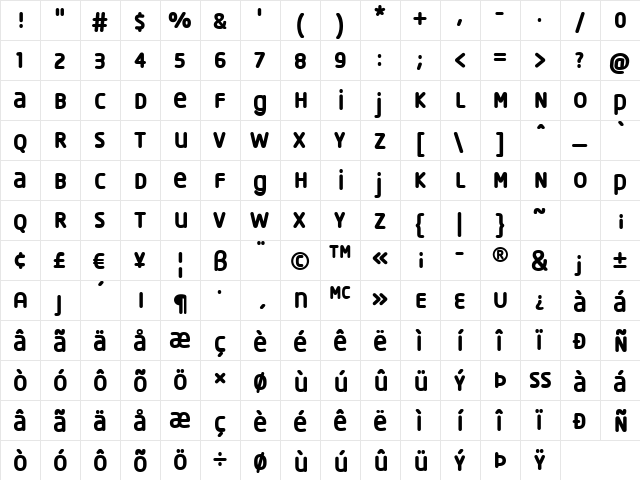
Cryptozoo Regular
| Foundry | VANOC Brand & Creative Services |
| Designer | Leo Obstbaum, VANOC Brand & Creative Services |
Design Context for Cryptozoo Typeface
Cryptozoo takes a measured approach to typography — its balanced proportions and neutral character make it a reliable workhorse for both digital and print work.